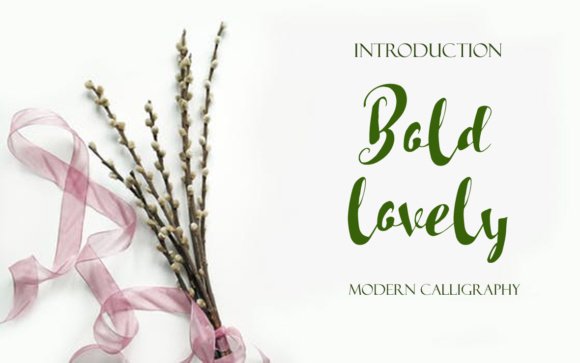
The Perfect Blend of Romance and Elegance: Bold Lovely Font
Have you ever stared at a blank page, pen in hand, trying to find the perfect words to express your emotions? That’s exactly what happened to me when I was tasked with designing a wedding invitation for a close friend. I wanted the words to be nothing short of magical, and that’s when I stumbled upon the Bold Lovely Font.
This elegant calligraphy font is a modern take on traditional romance, making it perfect for print projects that demand sophistication and charm. With its clean lines and flowing curves, Bold Lovely Font is an ideal choice for designers who want to add a touch of whimsy to their designs. Whether you’re working on a wedding invitation, a birthday card, or a romantic novel, this font is sure to make your project stand out.
- Unique Characteristics: The font features a unique blend of bold and lovely script styles, making it perfect for creating eye-catching headings and titles. It also includes a wide range of ligatures and swashes to add a touch of elegance to your designs.
Bold Lovely Font Review
I’ve had the chance to work with the Bold Lovely Font, and overall, I’m impressed with its unique style. Here’s my honest review:
- Unique aesthetic: The Bold Lovely Font has a distinctive look that’s perfect for adding some personality to your designs.
- Readability: Despite its bold appearance, the font is surprisingly easy to read, even at smaller sizes.
- Customization: The font is highly customizable, allowing you to adjust its weight, width, and other characteristics to suit your needs.
- Limited language support: The Bold Lovely Font may not support all languages or character sets, which could be a limitation for global brands.
- Not suitable for body text: Due to its bold nature, the font may not be ideal for large blocks of body text, where legibility is crucial.
The Bold Lovely Font is a great addition to any designer’s toolkit. Its unique style and high level of customization make it perfect for branding, headings, and other design elements where a bold statement is needed. While it may have some limitations, I’d definitely recommend it for the right projects.
The Bold Lovely Font is perfect for creating eye-catching headings, titles, and logos. Use it to add a touch of elegance and sophistication to your designs. Some common use cases include:
- Blog and website headers.
Can I customize Bold Lovely Font?